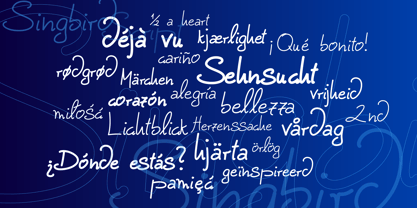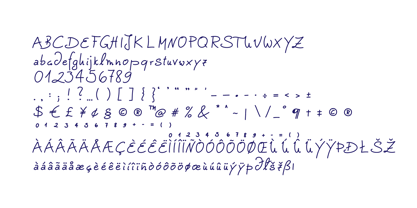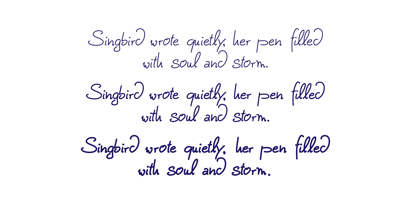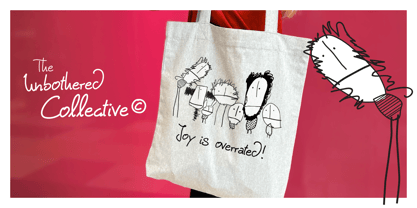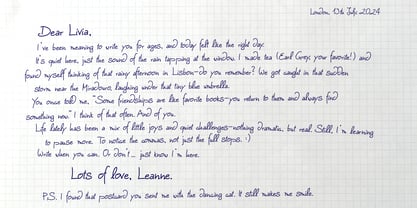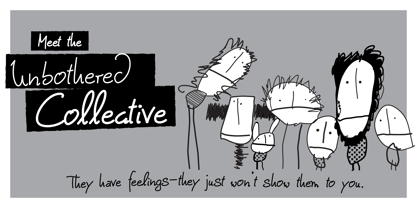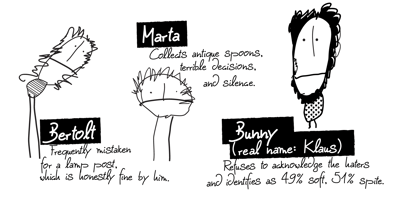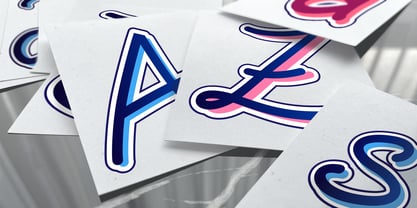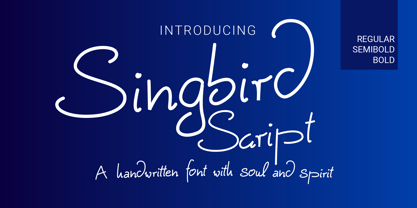
Singbird Script
Die Schriftfamilie Singbird Script wurde von La Brendes entworfen und von Tilde & Dot Type veröffentlicht. Singbird Script enthält 3 Stile und Familienpaketoptionen.
Singbird Script is a handwritten typeface that sings with personality. Designed to capture the fluid rhythm of expressive handwriting, it blends elegance with spontaneity—making it the perfect choice for branding, packaging, social media graphics, wedding invitations, and anything that needs a personal touch.
This three-style family—Regular, SemiBold, and Bold—offers flexibility for both headlines and body text while maintaining a natural handwritten feel. The strokes are smooth, slightly whimsical, and full of life, balancing charm with legibility. Whether you're designing logos, crafting heartfelt messages, or elevating a UI with some warmth, Singbird adapts beautifully to both digital and print projects.
What makes Singbird special is its balance between casual ease and thoughtful design. The letterforms are carefully drawn to preserve that personal character while ensuring professional polish. OpenType features and a broad Latin character set ensure it's not only beautiful but functional across many languages and uses.
Singbird Script pairs well with minimalist sans-serifs like Montserrat or geometric fonts like Futura, providing a soft counterpoint to clean lines. It also works nicely with vintage-inspired serifs for a more nostalgic or editorial look.
If you're looking for a typeface that feels personal, poetic, and a little bit playful, Singbird Script is ready to bring your words to life.